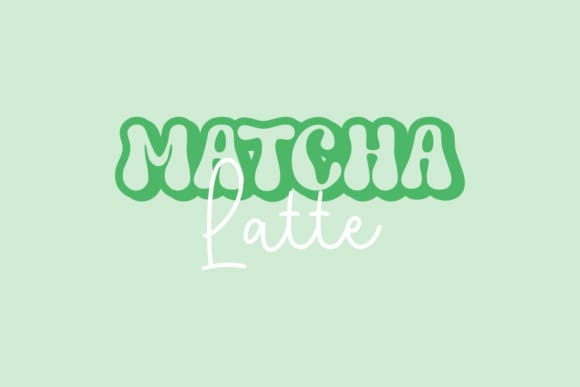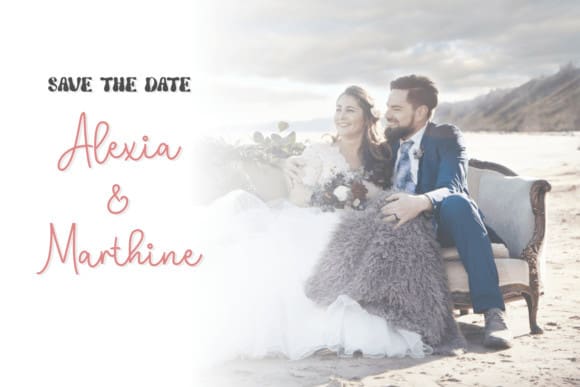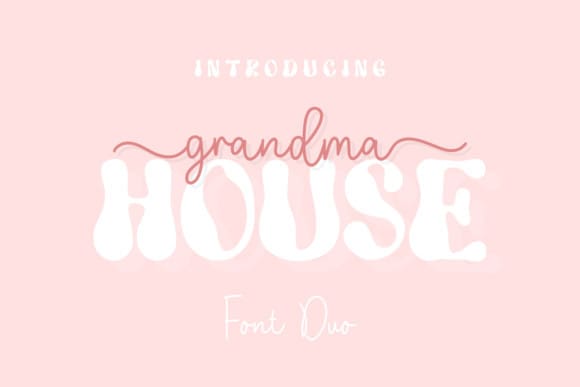
Grandma House Font Duo
Grandma House Font Duo is a sweet and fun font duo (sans serif and script). Add it to your logos, labels, branding, invitations, websites, quotes, and more, and it will boost your designs and make them a true standout!